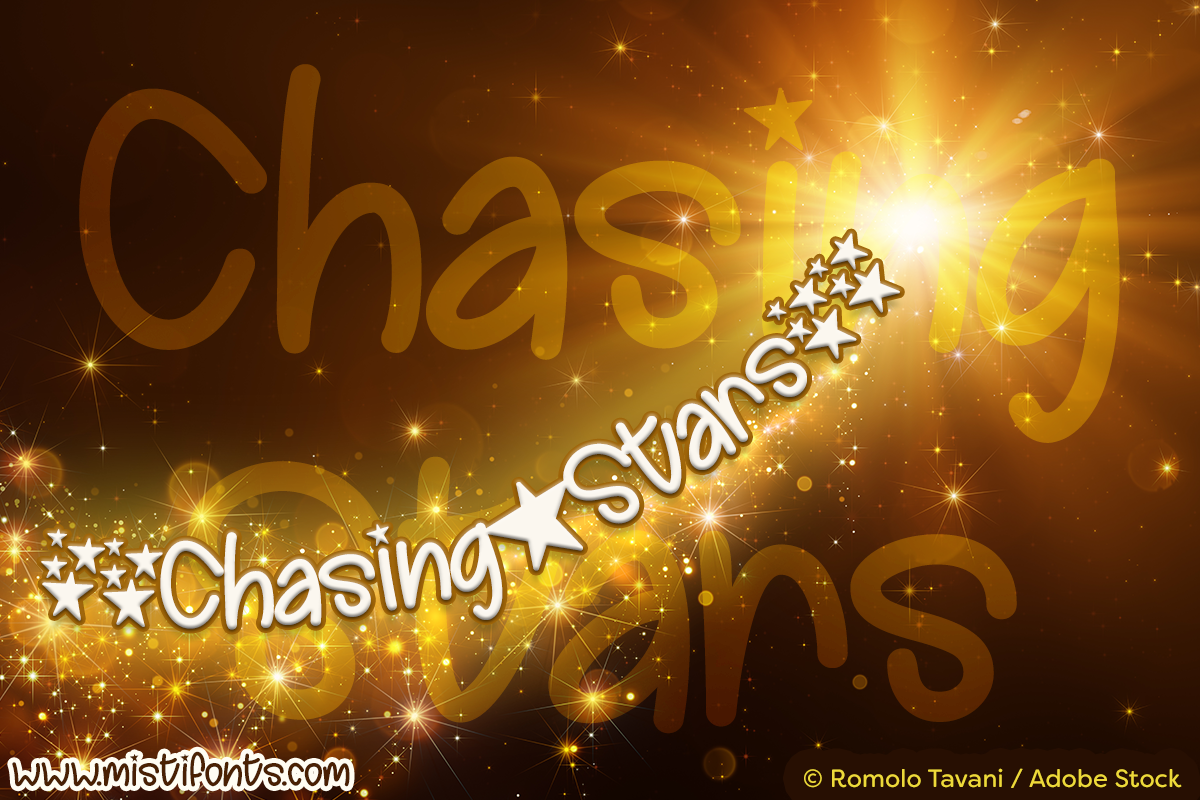
Chasing Stars is a fun handwriting font that is perfect for a variety of projects!
SPECIAL SYMBOLS
Type * (asterisk) for the star
Type ^ (caret) for the star cluster